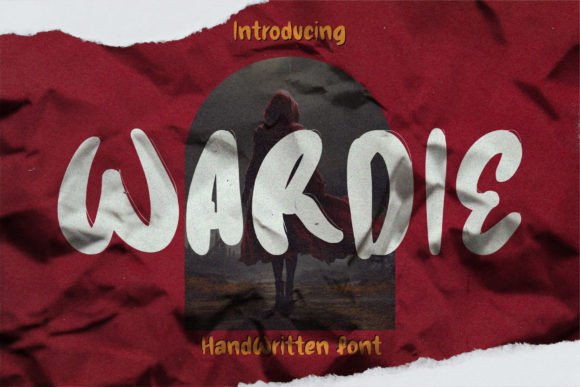
Introducing Wardie Font, the ultimate font for bold hashtags that will revolutionize your typography game. Created by AP, this charming handwritten font effortlessly captures the essence of natural, personal writing, making it the perfect choice for any project that requires a friendly and approachable touch.
With its flowing strokes and gentle curves, Wardie Font exudes warmth and authenticity, instantly captivating anyone who lays eyes on it. The unique, handcrafted feel of this script font adds a personal and genuine touch to your designs, setting you apart from the crowd.
Versatility is Wardie Font's middle name. Whether you're aiming for a casual and playful vibe or an elegant and heartfelt tone, this font has got you covered. It effortlessly adapts to various styles, making it a delightful choice for creating personalized invitations, heartfelt messages, or any content that benefits from a genuine, human touch.
But what sets Wardie Font apart from the rest? It's not just its stunning aesthetics or versatility, but the emotional connection it creates with your audience. This font has the power to evoke feelings of warmth, nostalgia, and authenticity, instantly forging a connection with your viewers.
Imagine using Wardie Font to craft social media posts. Your bold hashtags will come to life, capturing attention and engaging your audience in a way that no other font can. It adds that extra touch of personality and charm that will make your content stand out in a sea of generic typography.
But it doesn't stop there. Wardie Font is also the perfect choice for branding and logo design. It injects a sense of humanity into your brand, making it relatable and approachable. Your audience will feel an instant connection, building trust and loyalty that lasts.
So why settle for ordinary when you can elevate your designs with Wardie Font? This font not only enhances your typography but also adds depth and emotion to your creations. It's time to unleash your creativity and let Wardie Font work its magic.